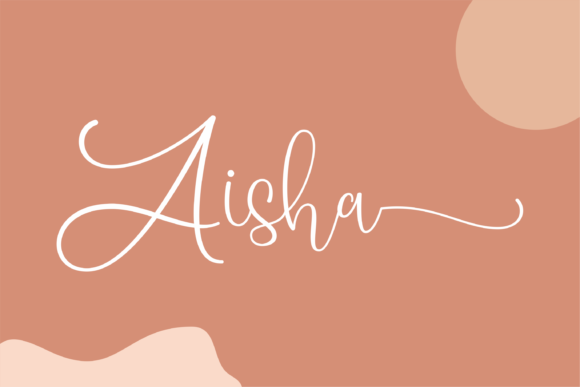
The Quest for the Perfect Font: Discovering Aisha
I’ll never forget the time I was working on a project for a client who wanted a elegant and whimsical font to match their brand’s personality. I spent hours scouring the internet for the perfect font, but nothing seemed quite right. That was until I stumbled upon Aisha, a sweet and elegant handwritten font that stole my heart. In this article, I’ll share my experience with Aisha, and show you how to make the most of this beautiful font.
A First Impression: What I Love About Aisha
Aisha is a beautifully crafted font that is sure to impress. Here are some of the things that I love about it:
• ✨ Elegant and whimsical feel that’s perfect for creative projects
• 💃 Characters that dance along the baseline, adding a touch of playfulness to your text
• 📚 Perfect for a variety of design projects, from invitations to branding materials
While Aisha is an amazing font, it’s not without its quirks. Here are a few things to keep in mind:
• ⚠️ Some users may find the font a bit too ornate for certain projects
• 🤔 Limited availability of certain characters or glyphs in certain platforms
However, these limitations are minor and can be easily worked around. Overall, Aisha is a fantastic font that is well worth the investment.
The Story Behind Aisha: Designer Inspiration
Aisha was designed by a team of talented typographers who wanted to create a font that was both elegant and whimsical. The font is named after a fictional character who embodies the qualities of creativity and playfulness. The designers drew inspiration from a variety of sources, including handwriting and calligraphy.
Font Name Aisha Font
Author Toko Laris Djaja
What is Aisha font? Aisha is a sweet and elegant handwritten font with characters that dance along the baseline.